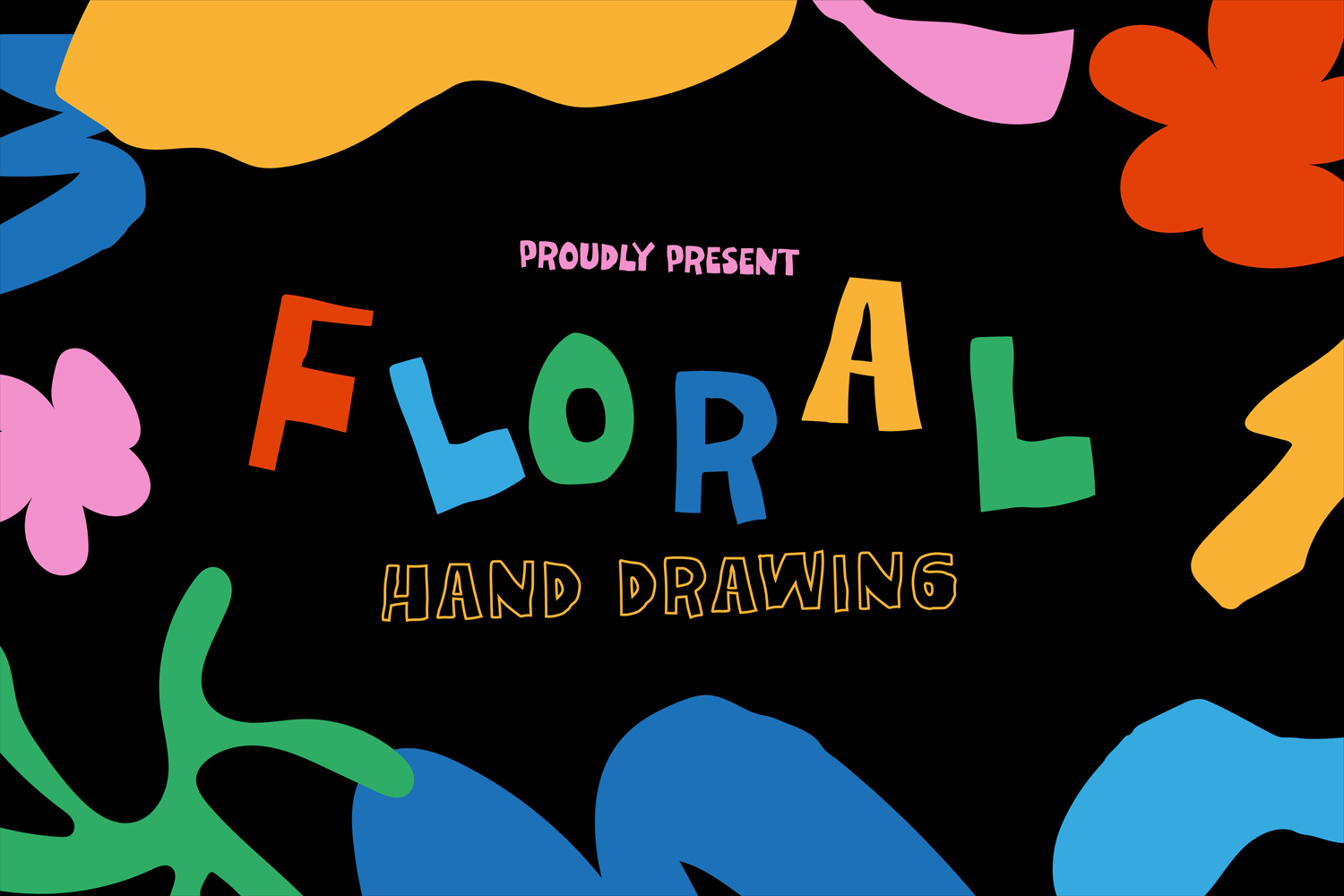
Floral Handdrawing
Unleash your creativity with Floral Handdrawing, a captivating hand-drawn font featuring a playful, wild, and free-spirited aesthetic. Designed to complement your cool brand style, Floral will inject an incredibly joyful energy into your designs. Add this stunning display font to your projects and watch them instantly come alive, making a memorable statement.